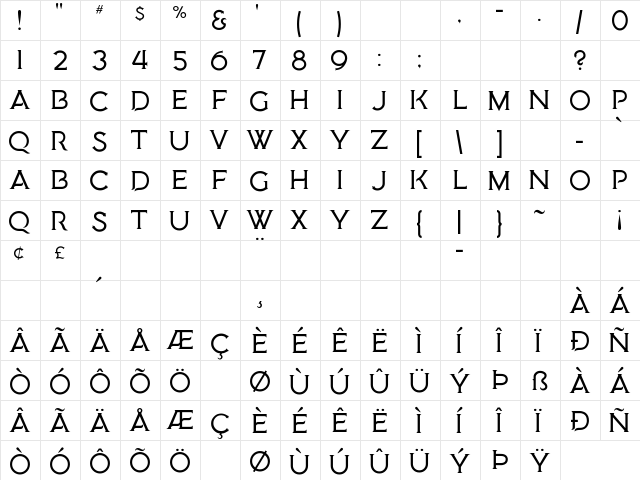
Medusa Gothic Regular
Design Context for Medusa Gothic Typeface
Medusa Gothic takes a clean, functional approach — its unadorned letterforms prioritise legibility and work reliably across screen and print environments.
Font Pairing: Works well alongside a characterful serif or display font that can carry the expressive load while Medusa Gothic handles the functional copy.
Pro Tip: Pair Medusa Gothic with a display or serif font for headlines — its neutral character makes it an excellent supporting player in complex typographic systems.